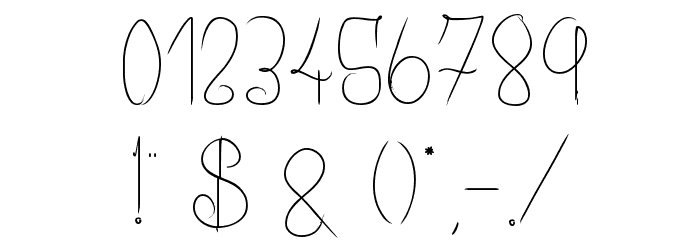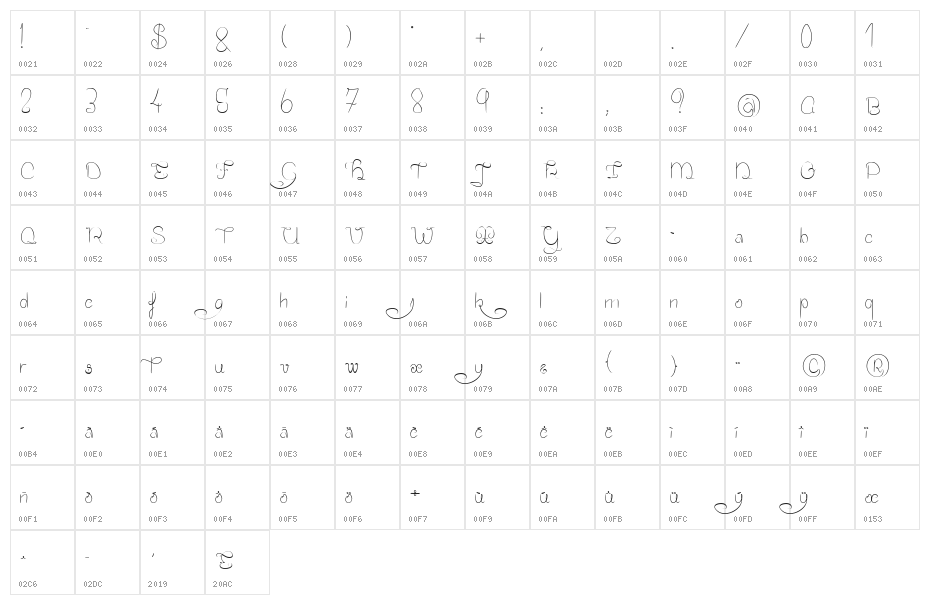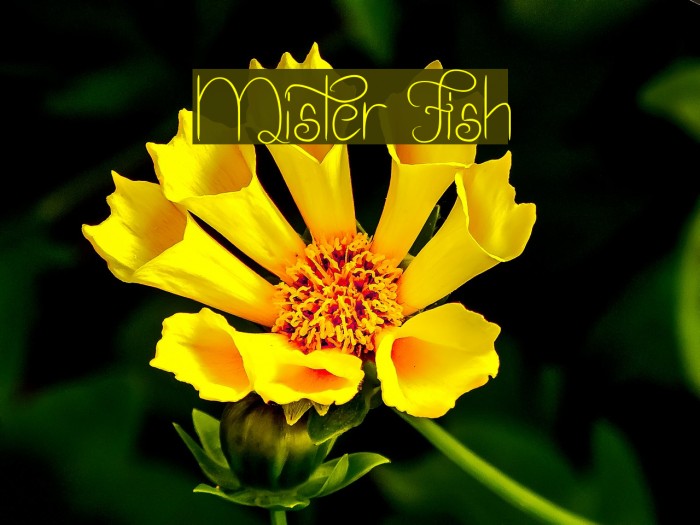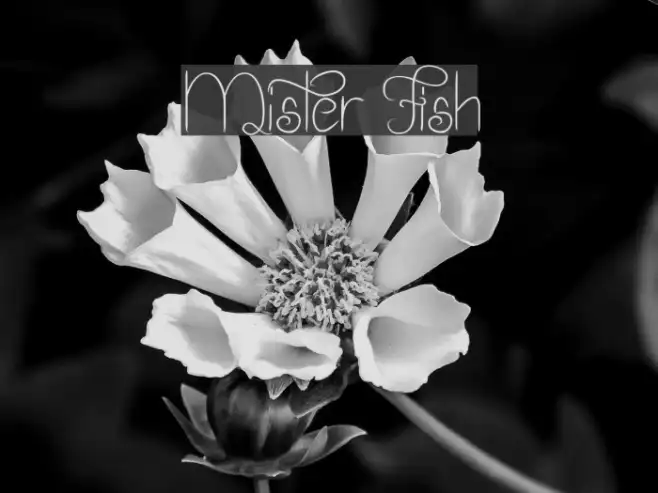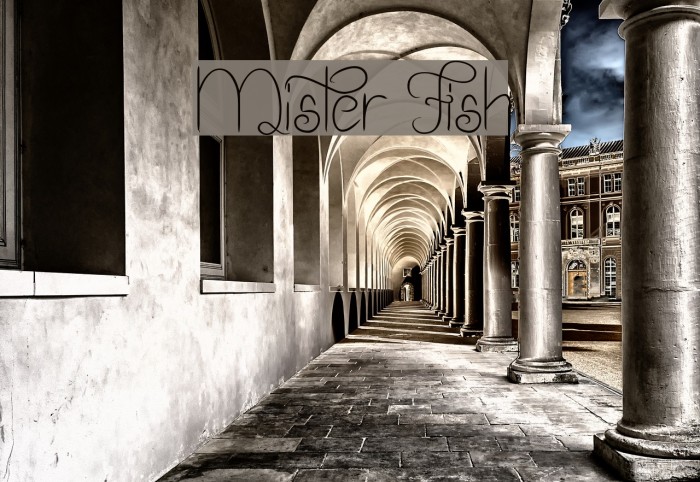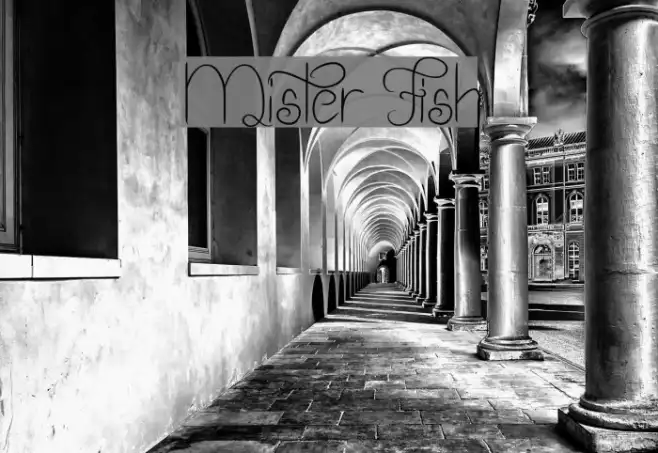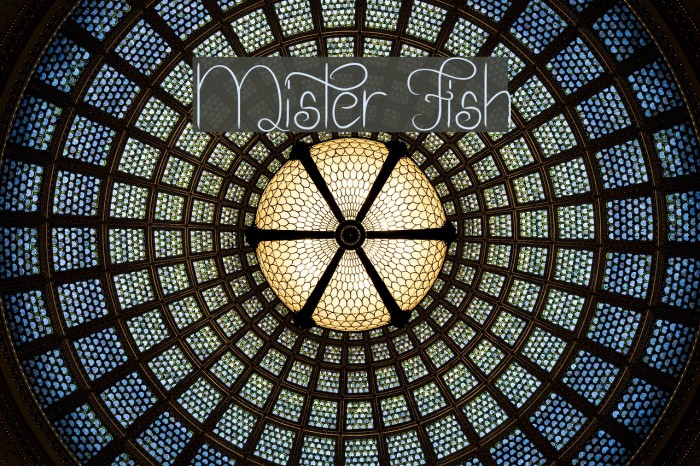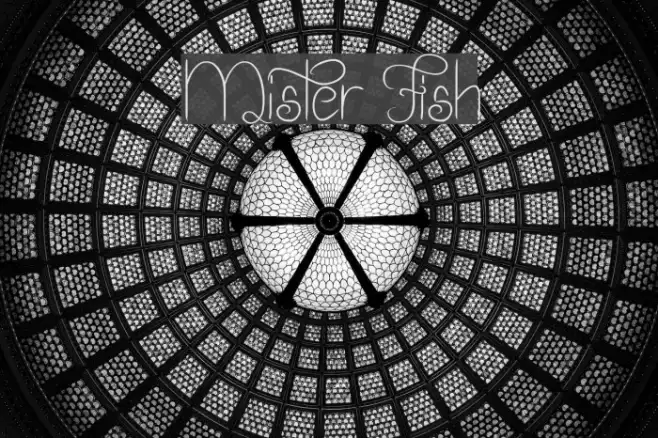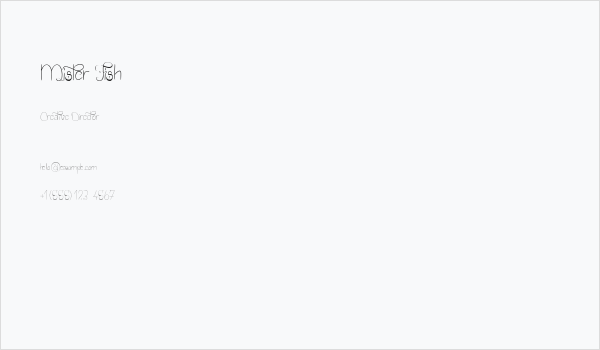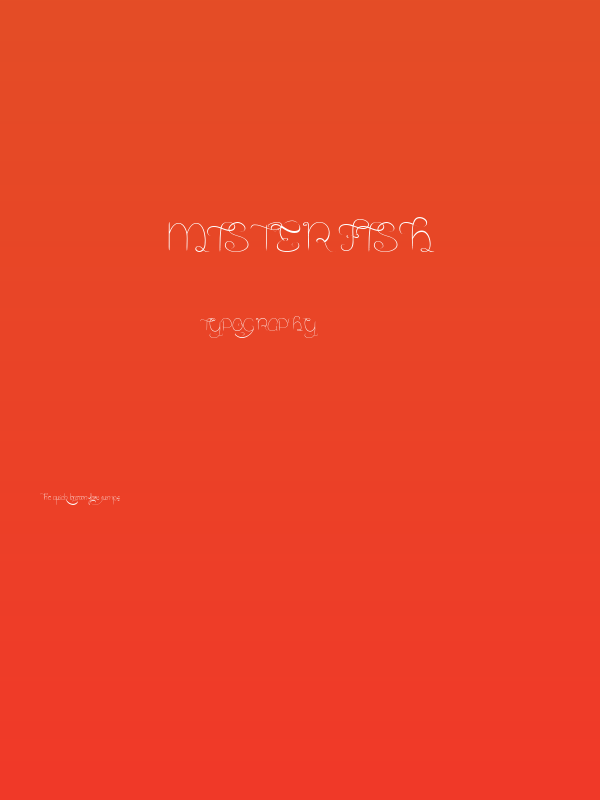
Mister Fish Font
Mister Fish Description
This font features an elegant and whimsical design with intricate swirls and loops that give it a decorative flair. The characters are thin and elongated, with a consistent stroke width that maintains a delicate appearance. The uppercase letters are particularly ornate, with exaggerated curves and flourishes that add a sense of sophistication and playfulness. The lowercase letters maintain a similar style, offering a cohesive look throughout the alphabet. Numbers and special characters are designed with the same attention to detail, ensuring a harmonious overall appearance. This font is ideal for projects that require a touch of elegance and creativity.
| Proposed Projects | Ideal for wedding invitations, greeting cards, branding, and decorative posters. |